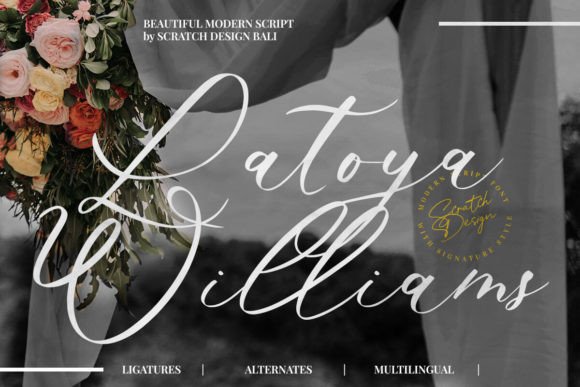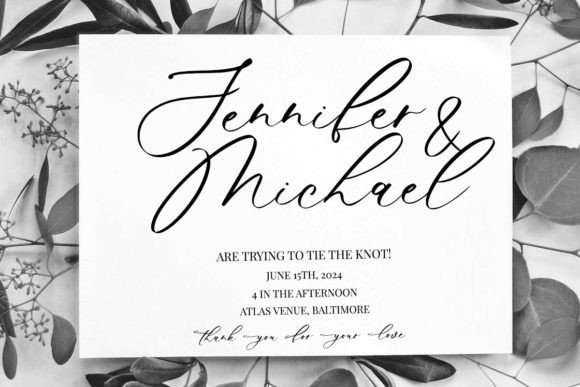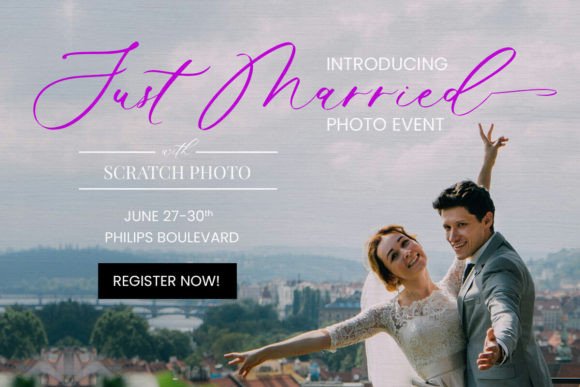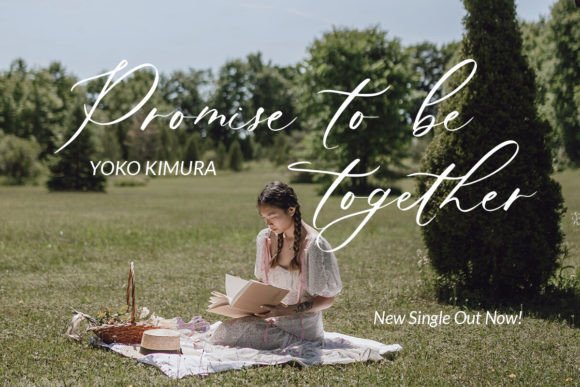
Latoya Williams Font
About the Latoya Williams Font
Step up your design game with Latoya Williams Font, a font that exudes confidence and style. Introducing Latoya Williams, an elegant, modern calligraphy script font that effortlessly enhances romantic designs, especially compositions adorned for wedding functions. This font breathes in a sweet and pleasing aura, accented with exquisitely crafted beginning and ending swashes that only indicate in lowercase letters. Designed to beautify a wide variety of projects, you can exploit Latoya Williams in creating striking wedding invitations, commanding branding designs, captivating posters, alluring product packaging, trendy magazine layouts, and visually engaging social media content.
Latoya Williams Font Usage Examples
Latoya Williams Font Example